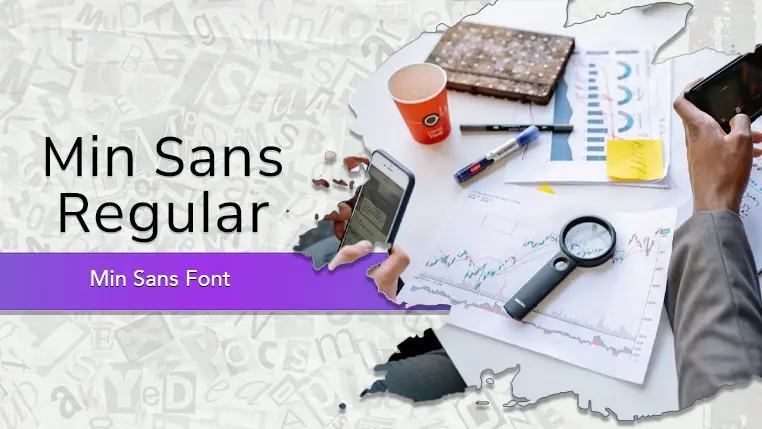
The Min Sans font family may be ideal for you if you enjoy working on an artistic design project. The lively, expressive look of this typeface, which was created by Jinseong Kim, makes it ideal for Min Sans built to be clear, readable, and consistent across various screen sizes and resolutions, making it perfect for Websites and web applications, Mobile apps, Dashboards and data visualizations and Digital product design. Its clean, modern, and harmonious look makes it excellent for contemporary brands, especially those in tech, startups, or any industry wanting a sleek and approachable image. and other light-hearted visual projects.
Regular are the one primary font styles of the Min Sans font family. You may build dynamic, visually appealing text layouts with the distinct flair that each style offers. With crisp, readable lines and a relaxed tone.